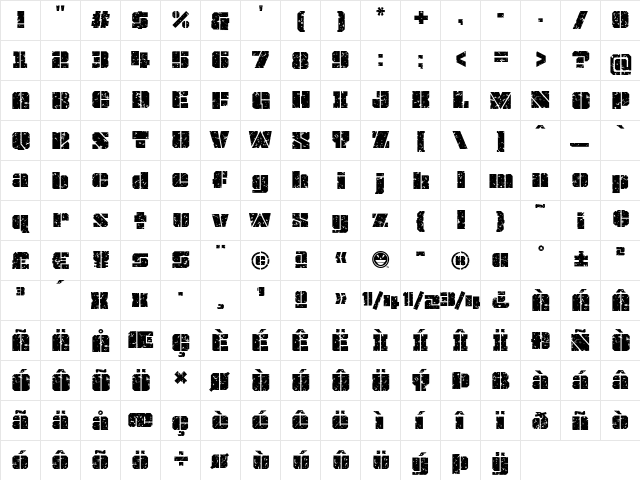
JLS OverKill Grunge Regular
| Foundry | Mike Adkins & James Stirling |
| Designer | James Stirling & Mike Adkins |
Design Context for JLS OverKill Grunge Typeface
JLS OverKill Grunge trades polish for personality, using distressed and eroded forms to bring grit and attitude to creative work.
A strong fit for alternative music projects, graffiti-adjacent design, and anything that deliberately resists polish.
Pro Tip: Use JLS OverKill Grunge at larger sizes where the texture and irregularity of each letterform can be clearly seen — it loses its character at small sizes.